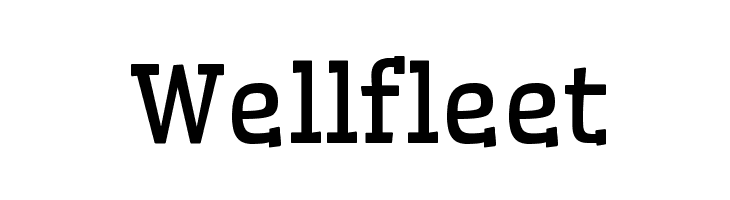
A bold serif font with strong strokes and pronounced serifs, offering a classic yet modern look.
A bold, classic serif font with strong strokes and pronounced serifs.
A bold serif font with strong, elegant characters ideal for headlines.
A bold, thick font with a strong, modern presence.
A bold serif font with thick strokes and strong serifs, perfect for impactful headlines.
A bold slab serif font with strong, block-like serifs and excellent readability.
) A modern slab serif font with strong lines and prominent serifs.
A bold, geometric font with rounded edges and a strong presence.
A bold, impactful typeface with thick strokes and strong presence.
A bold, impactful font with thick, uniform strokes and a strong geometric influence.